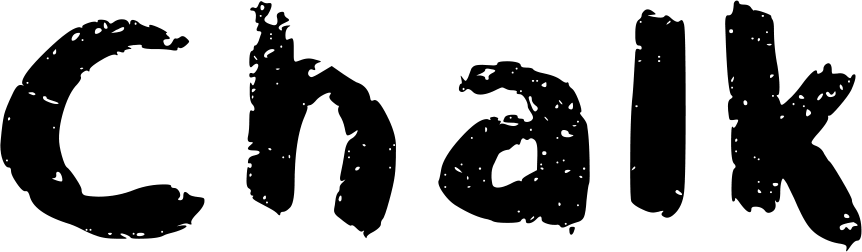
Chalk Font
Chalk from the script family font arrives to offer a cool dirty design with the hidden ink in some parts of the letterform. This font that comes with uppercase and lowercase letters can point out your typography beautifully. Come in handy with some cute comic vivid to designing any cards, posters, clothing, cartoons, album covers, and so on.